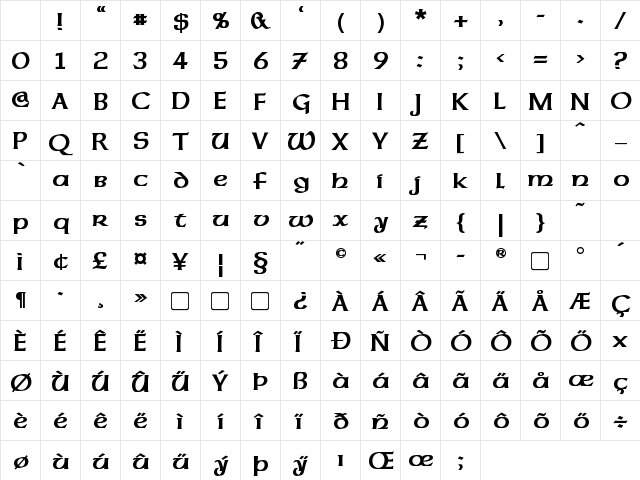
Dalelands Uncial is a composed and adaptable typeface that performs quietly and consistently across a wide range of design contexts. Its bold stroke weight gives it real presence on the page.